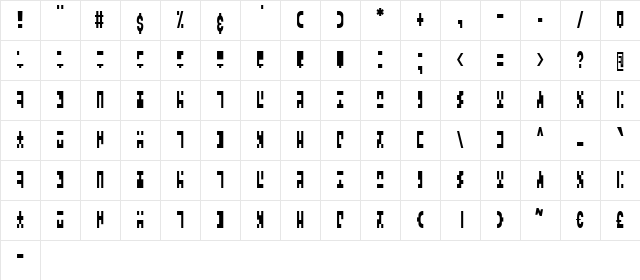
Anquietas Regular
Design Context for Anquietas Typeface
Anquietas is a composed and adaptable typeface that performs quietly and consistently across a wide range of design contexts.